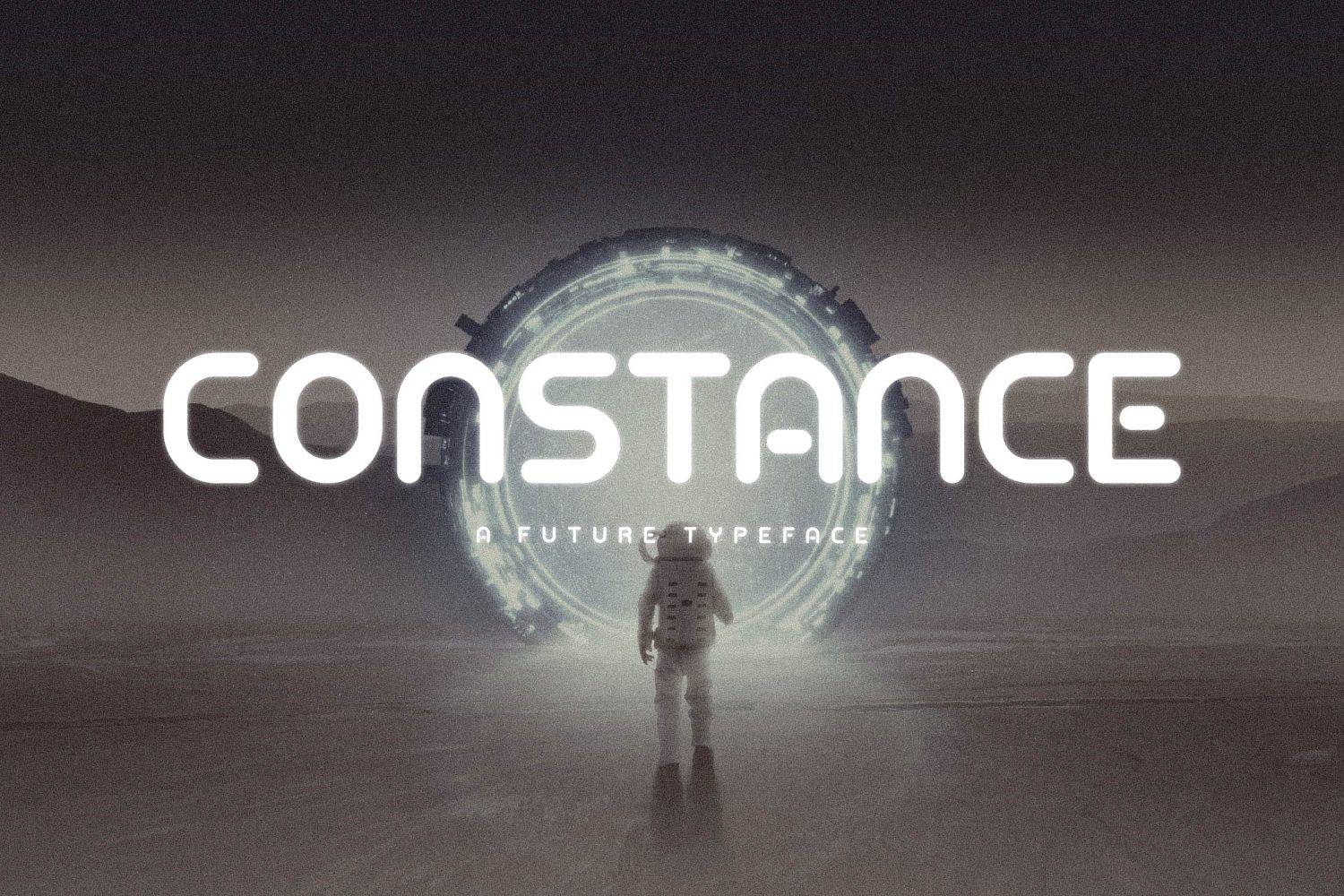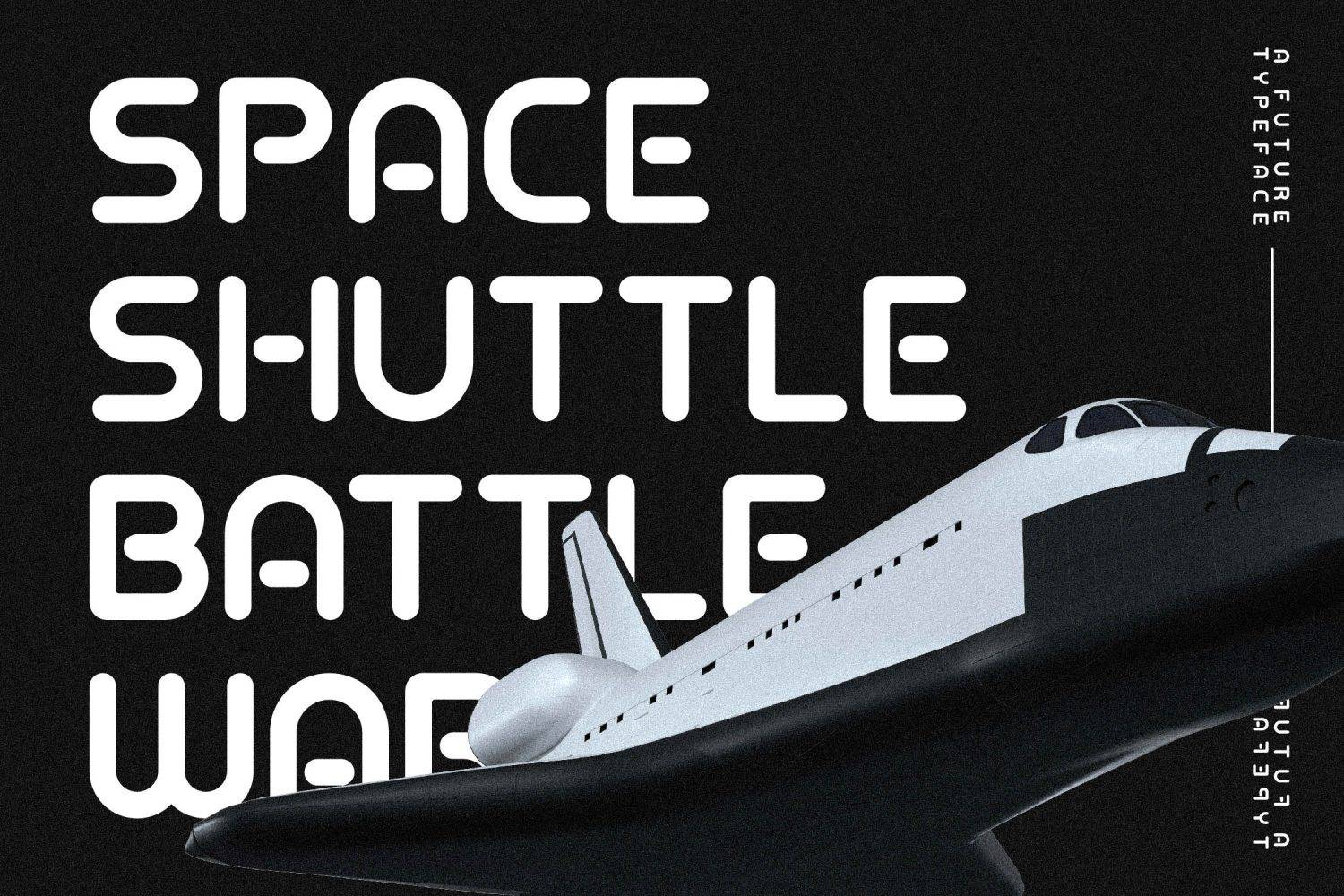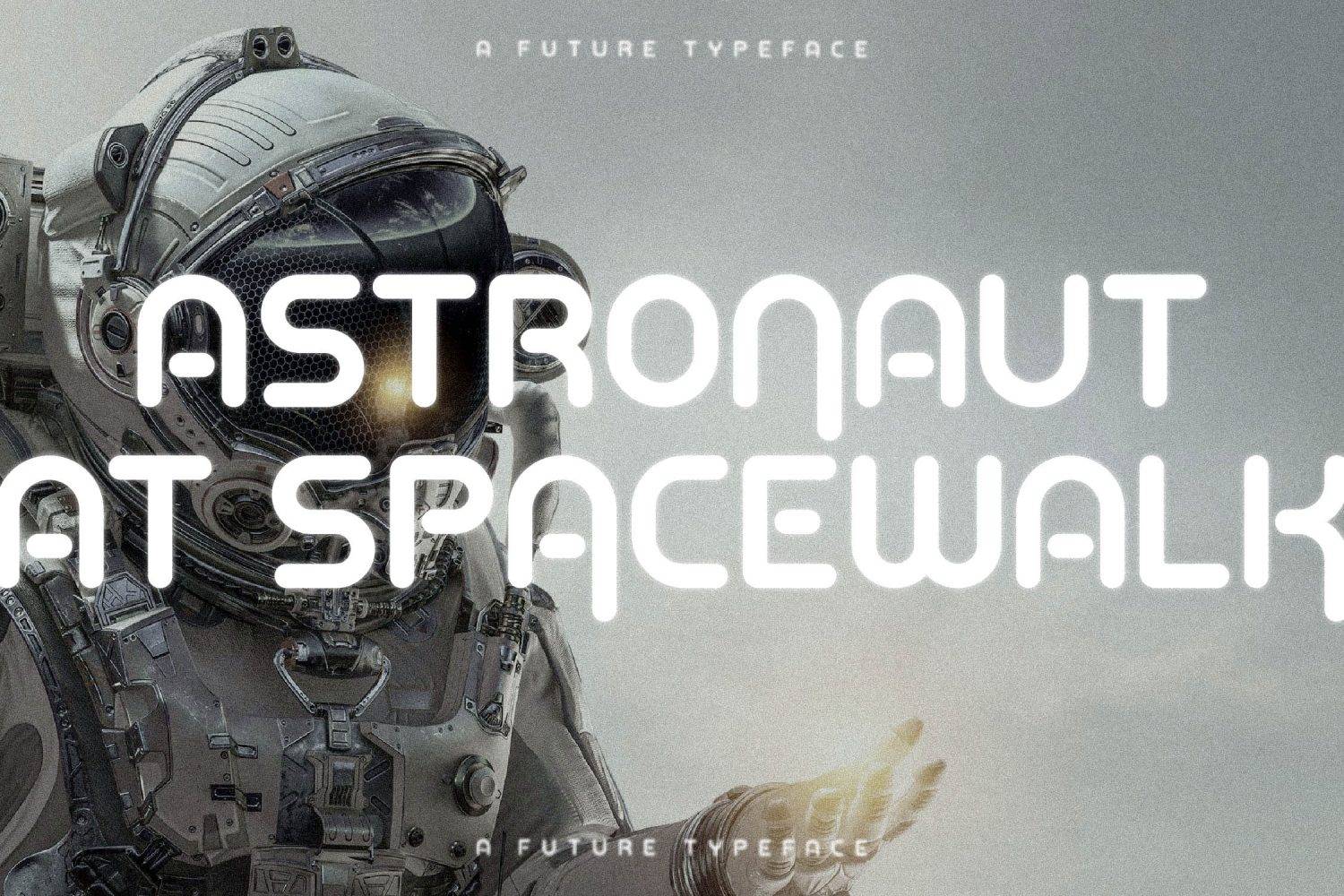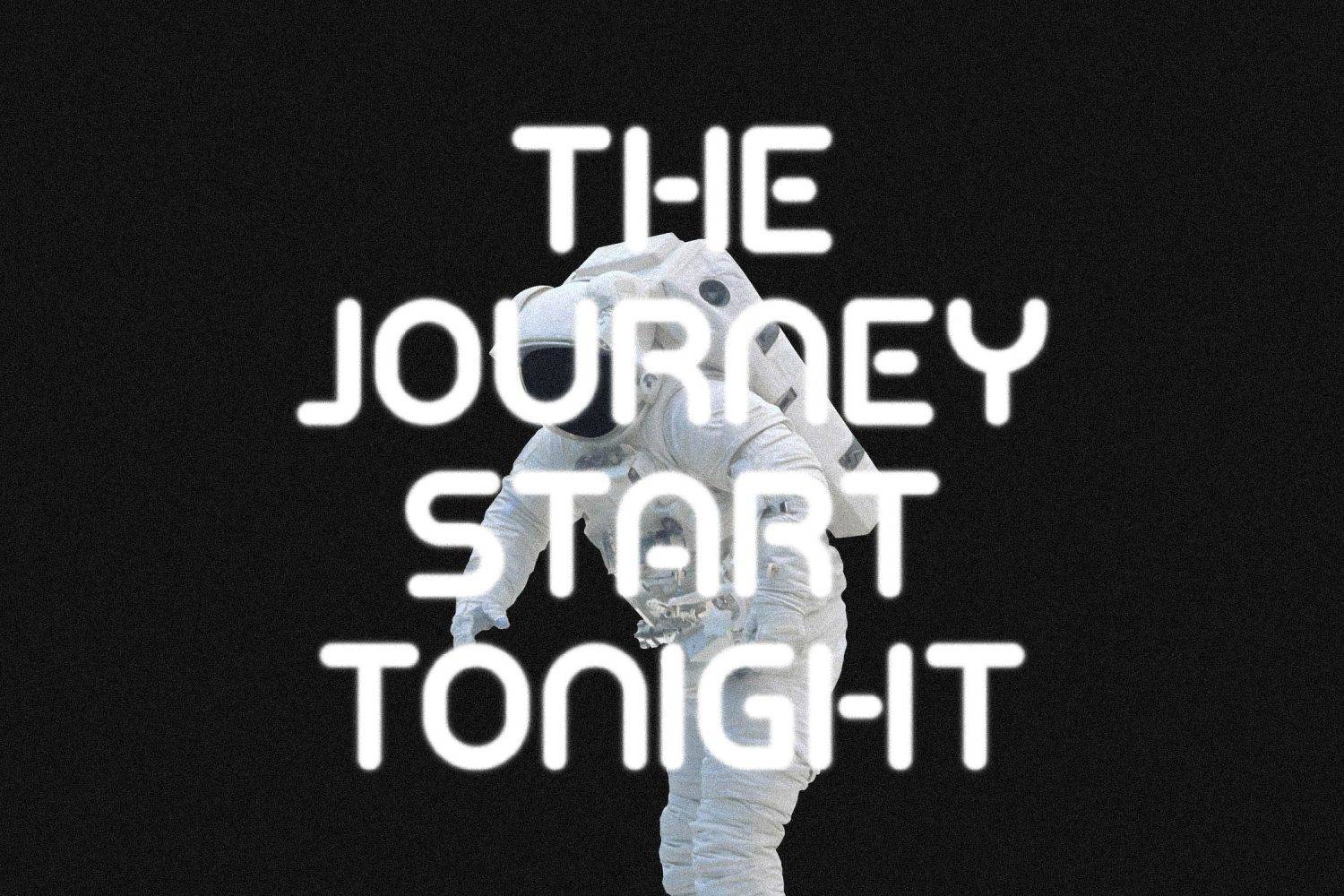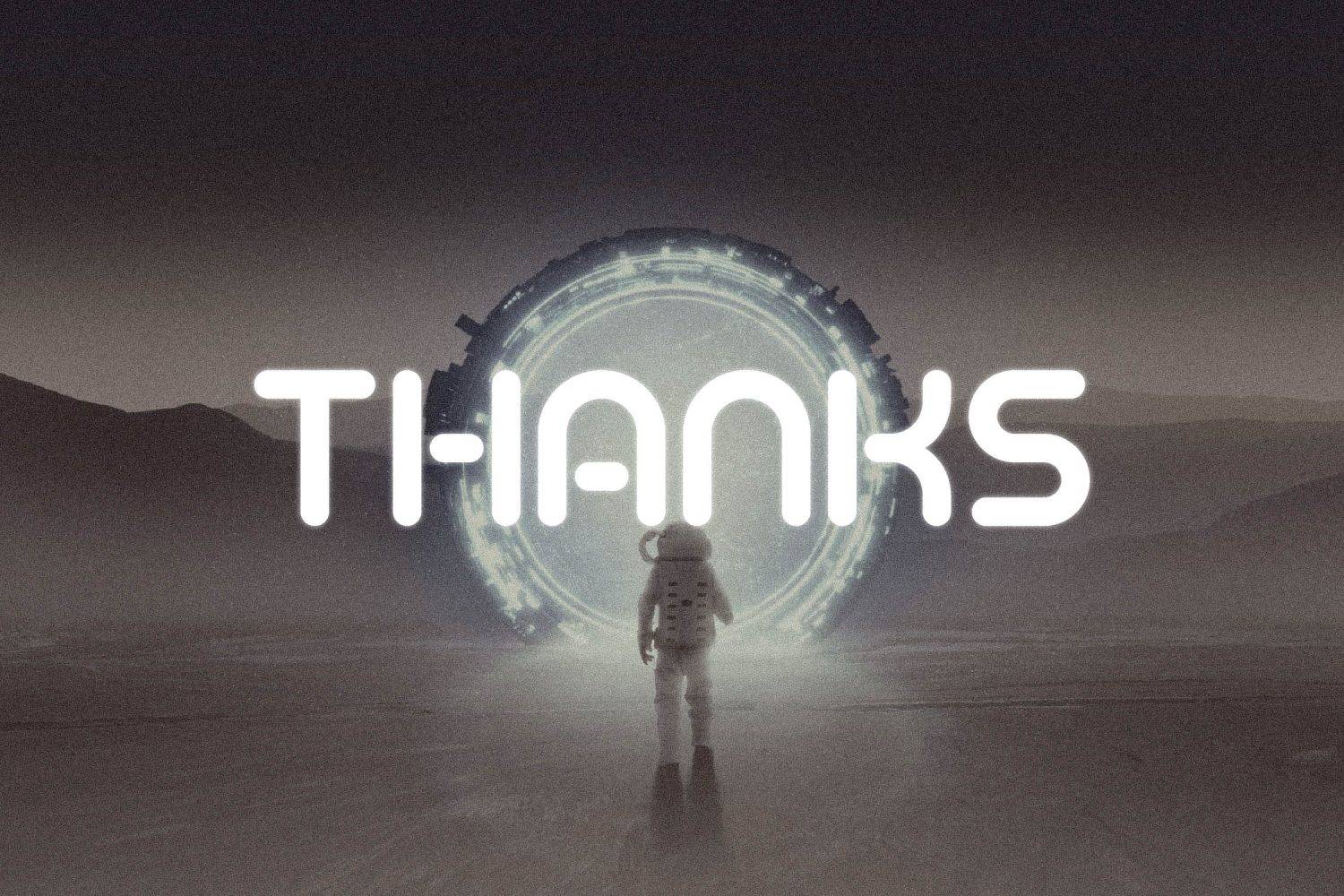
Constance is a bold, geometric sans serif font with rounded corners and a clean, modern look that suggests a futuristic or tech-inspired style. Its uniform stroke weight and unique letterforms, like the double-story 'a' and distinctive 'Q' tail, give it a playful yet professional vibe, making it ideal for headlines, logos, and branding where a contemporary, approachable feel is desired. This font shines in digital contexts and creative projects that aim to balance friendliness with innovation.
Constance Font
About Constance Font